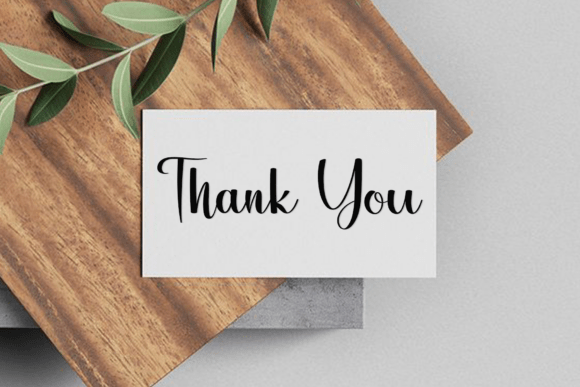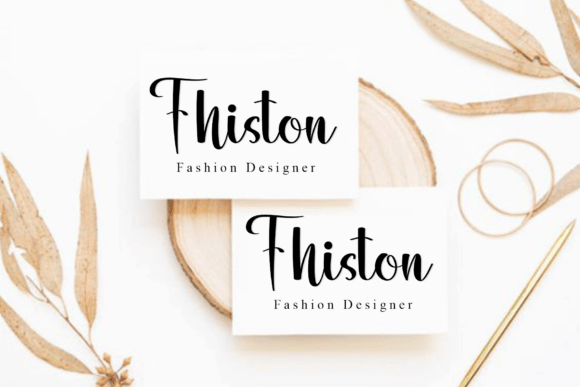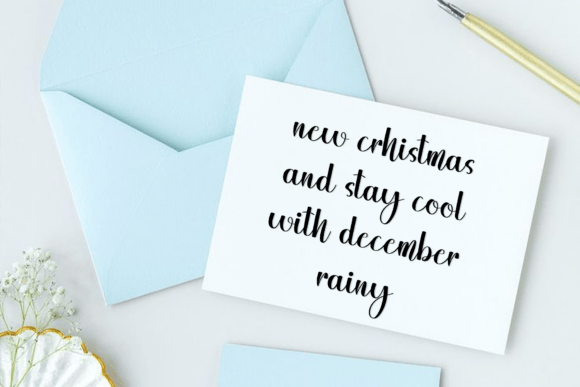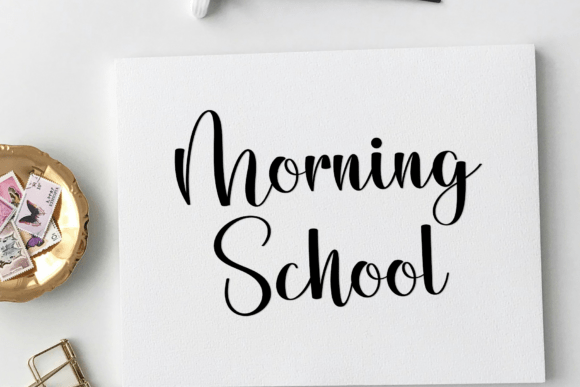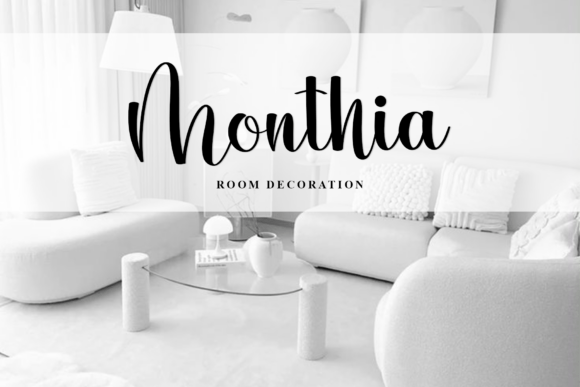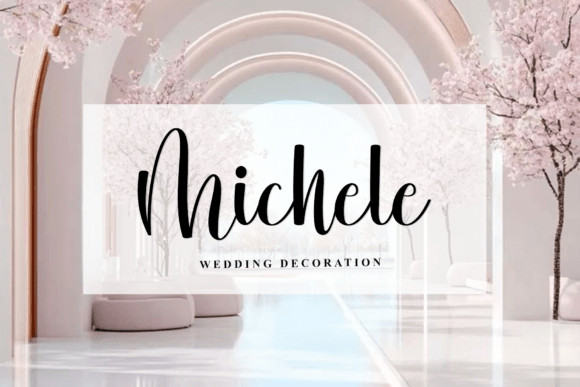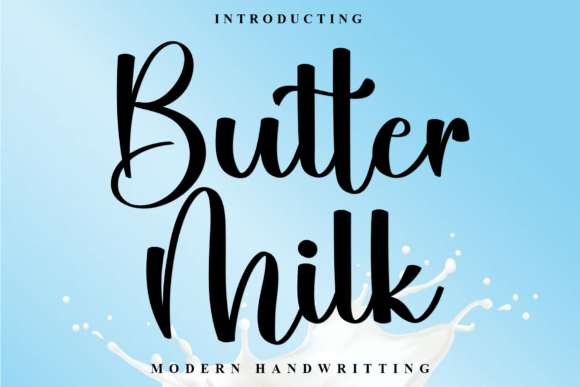
Introducing Butter Milk Font: The Perfect Addition to Your Design Arsenal
Are you tired of using the same old fonts in your design projects? Look no further than Butter Milk Font, a beautiful and eye-catching typeface that is sure to elevate your creative work. With its soft, unique touch and distinctive strokes, this font is perfect for designers, crafters, and artists looking to add a special touch to their projects.
The Unique Characteristics of Butter Milk Font
Butter Milk Font is designed with a special character that sets it apart from other fonts. Its soft and unique touch gives it a distinctive feel that is both meaningful and versatile. The font’s strokes are carefully crafted to create a natural and effortless look that is perfect for a wide range of design projects. Whether you’re working on a logo, brochure, or social media graphics, Butter Milk Font is sure to make your designs stand out.
Butter Milk Font is perfect for designers and crafters who are looking for a font that can be used in a variety of creative projects. The font comes with a range of characters, making it ideal for use in crafts, DIY projects, and other creative works. Whether you’re creating a handmade card, scrapbook, or journal, Butter Milk Font is the perfect choice.
Ideal for a Wide Range of Products
Butter Milk Font is a versatile font that can be used in a wide range of products, from digital designs to print materials. Whether you’re creating a logo, business card, or brochure, this font is sure to enhance your designs and make them more appealing to your audience. The font’s natural and effortless look makes it perfect for use in:
• Logos and branding materials
• Business cards and stationery
• Brochures and flyers
• Social media graphics and ads
• Handmade crafts and DIY projects
Why Choose Butter Milk Font?
So why choose Butter Milk Font over other fonts? Here are just a few reasons:
• Unique and eye-catching design: Butter Milk Font has a distinctive look that sets it apart from other fonts.
• Perfect for creative projects: Butter Milk Font is ideal for use in design projects, crafts, and other creative works.
• Natural and effortless look: The font’s natural and effortless look makes it perfect for use in a wide range of products.
In conclusion, Butter Milk Font is a beautiful and eye-catching font that is perfect for designers, crafters, and artists looking to add a special touch to their projects. With its unique and distinctive design, versatility, and compatibility, this font is sure to enhance your designs and make them more appealing to your audience. Whether you’re working on a logo, brochure, or social media graphics, Butter Milk Font is the perfect choice.